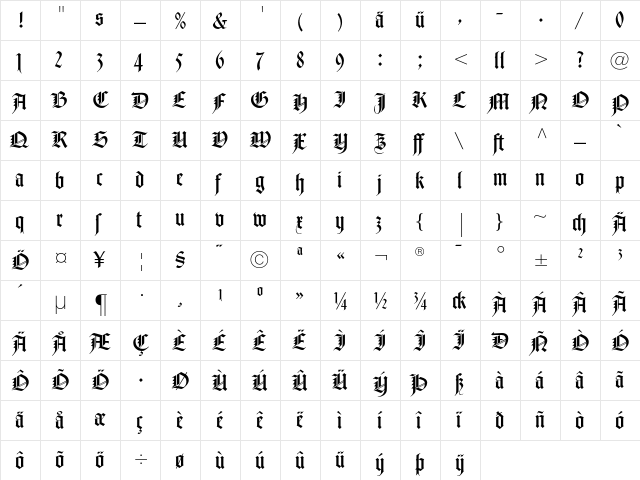
Notre Dame RomanDfr
Design Context for Notre Dame Typeface
Notre Dame is a composed and adaptable typeface that performs quietly and consistently across a wide range of design contexts.